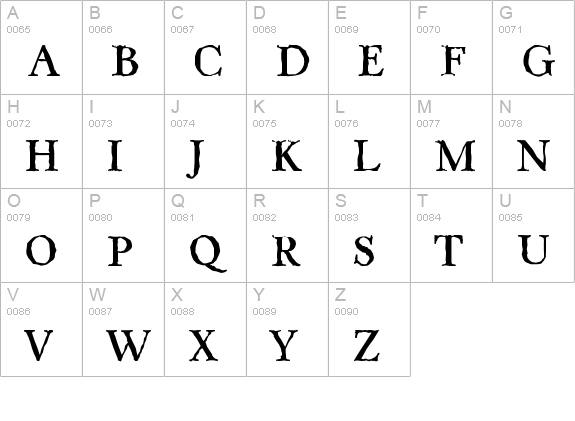
CasablancaAntique-Regular is the standard, neutral variant in the CasablancaAntique typeface family \xE2\x80\x94 well suited to general body text, paragraphs, and standard typographic work.
CasablancaAntique-Regular is a timeless and elegant font that effortlessly combines classic charm with a touch of nostalgia. Its intricate details and vintage-inspired design make it a perfect choice for projects that require a sophisticated and refined look. This font exudes a sense of old-world glamour, reminiscent of the golden age of cinema and the romantic allure of Casablanca. Its ornate serifs and graceful curves add a touch of elegance to any design, making it ideal for invitations, branding, and editorial projects. CasablancaAntique-Regular is a versatile font that can be used for a wide range of design applications, from wedding invitations to vintage-inspired logos. Its readability and distinct style make it a standout choice for anyone looking to add a touch of sophistication to their work. Best of all, CasablancaAntique-Regular is freely available to download at FontsMarket.com, making it accessible to designers of all levels. Whether you're a seasoned professional or just starting out, this font is sure to elevate your designs and leave a lasting impression.